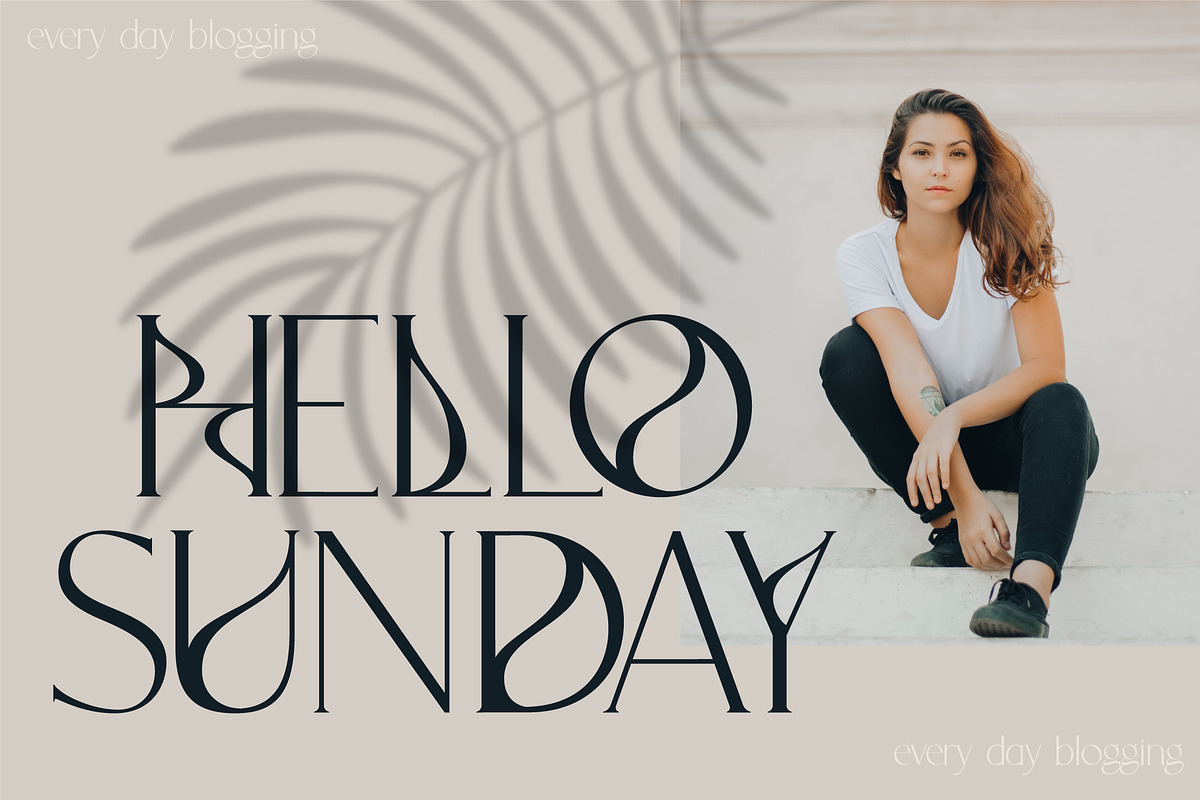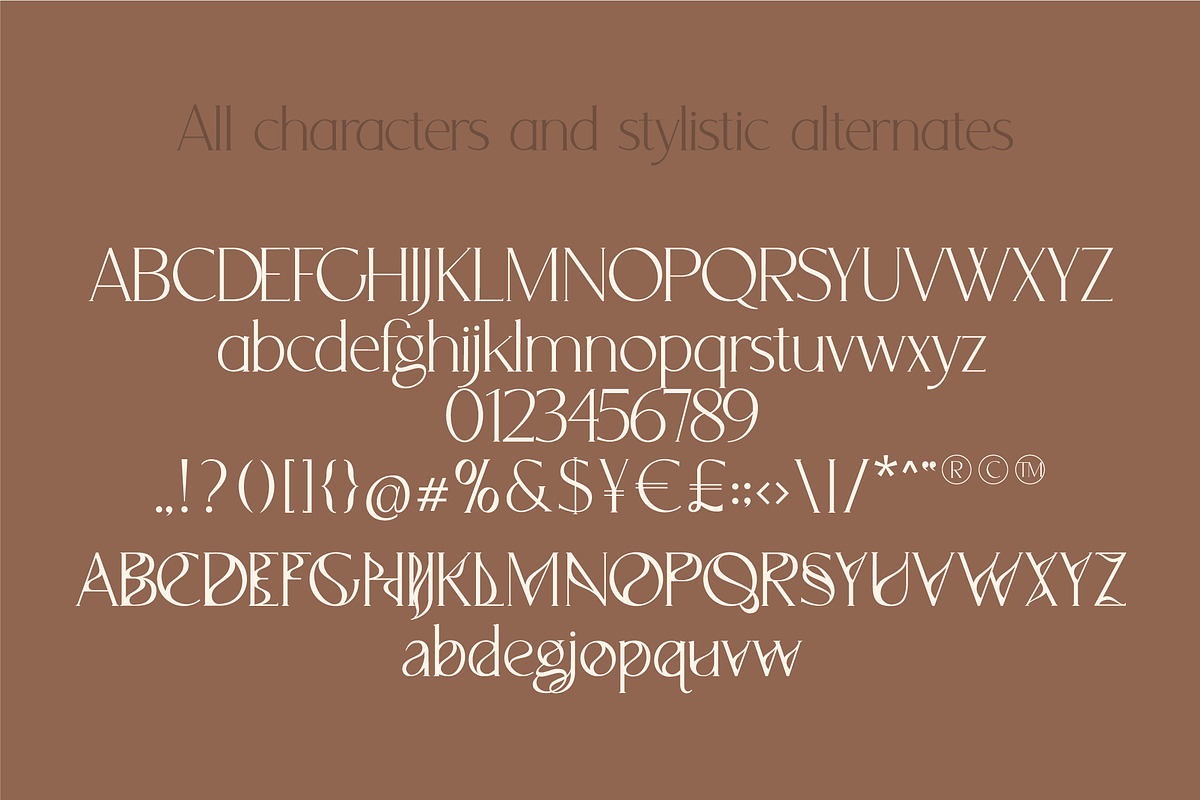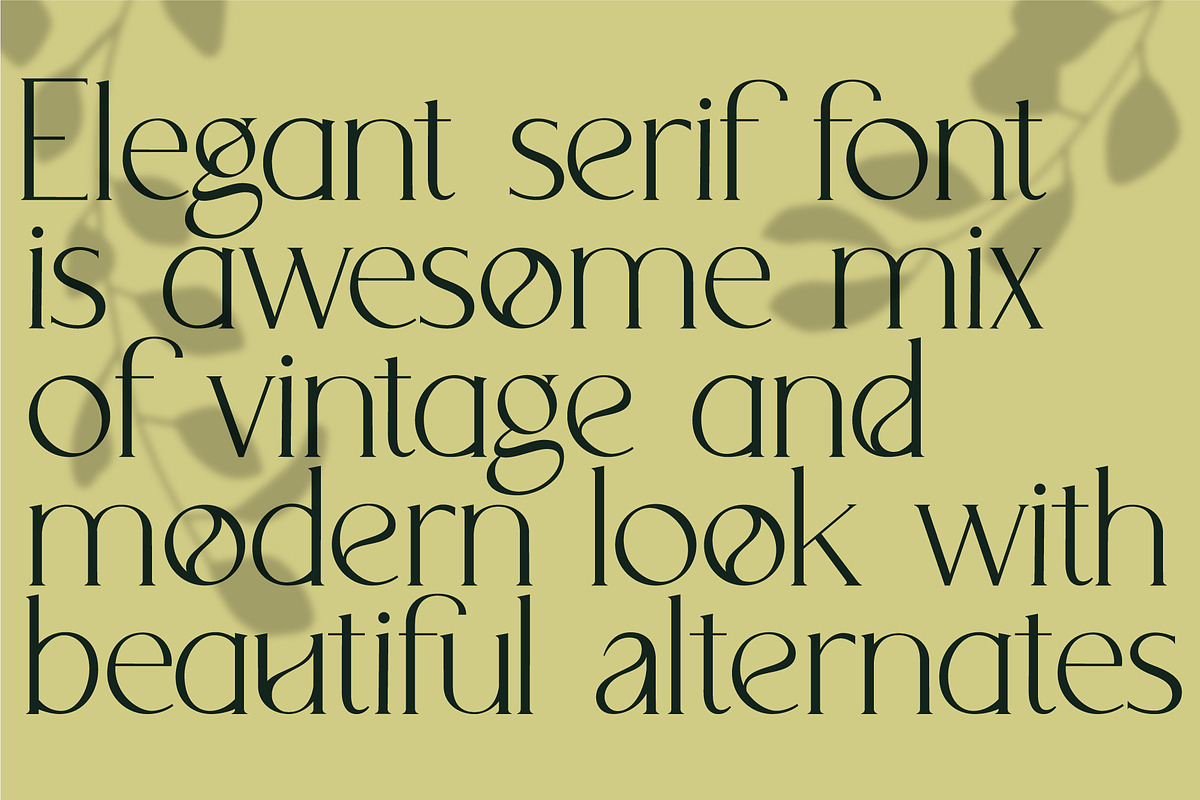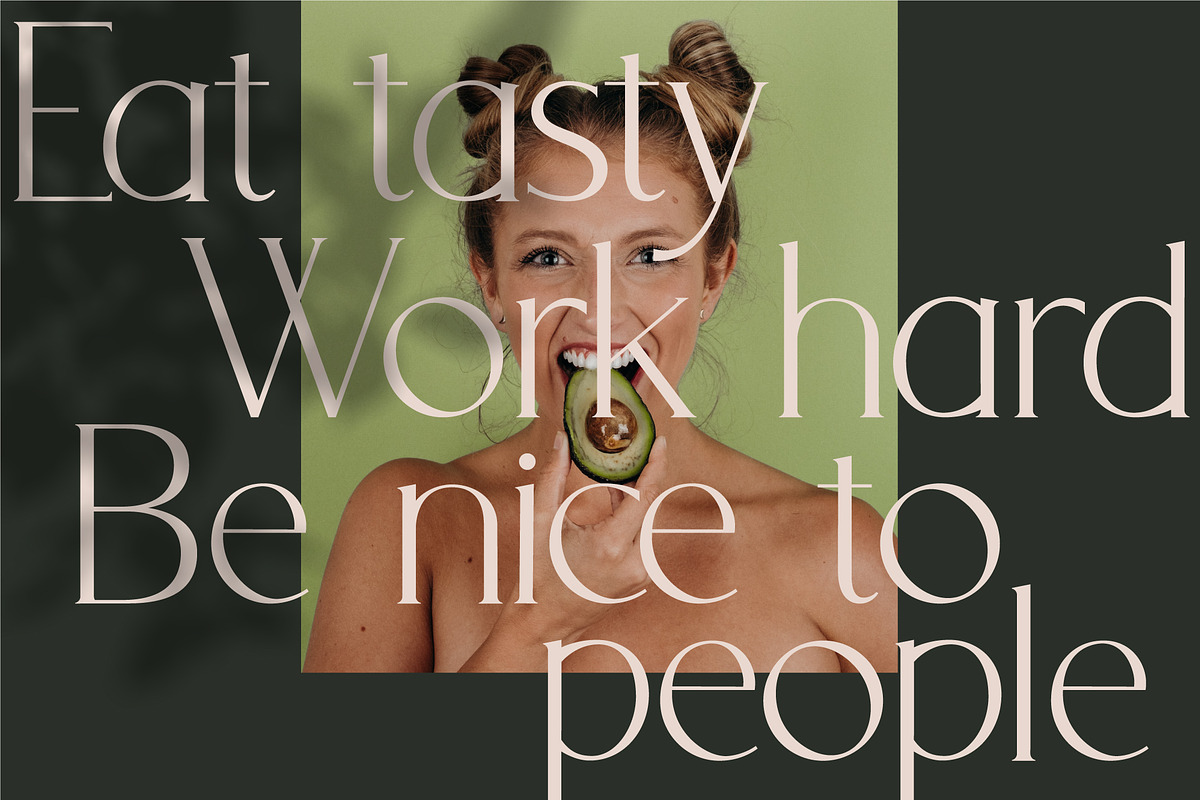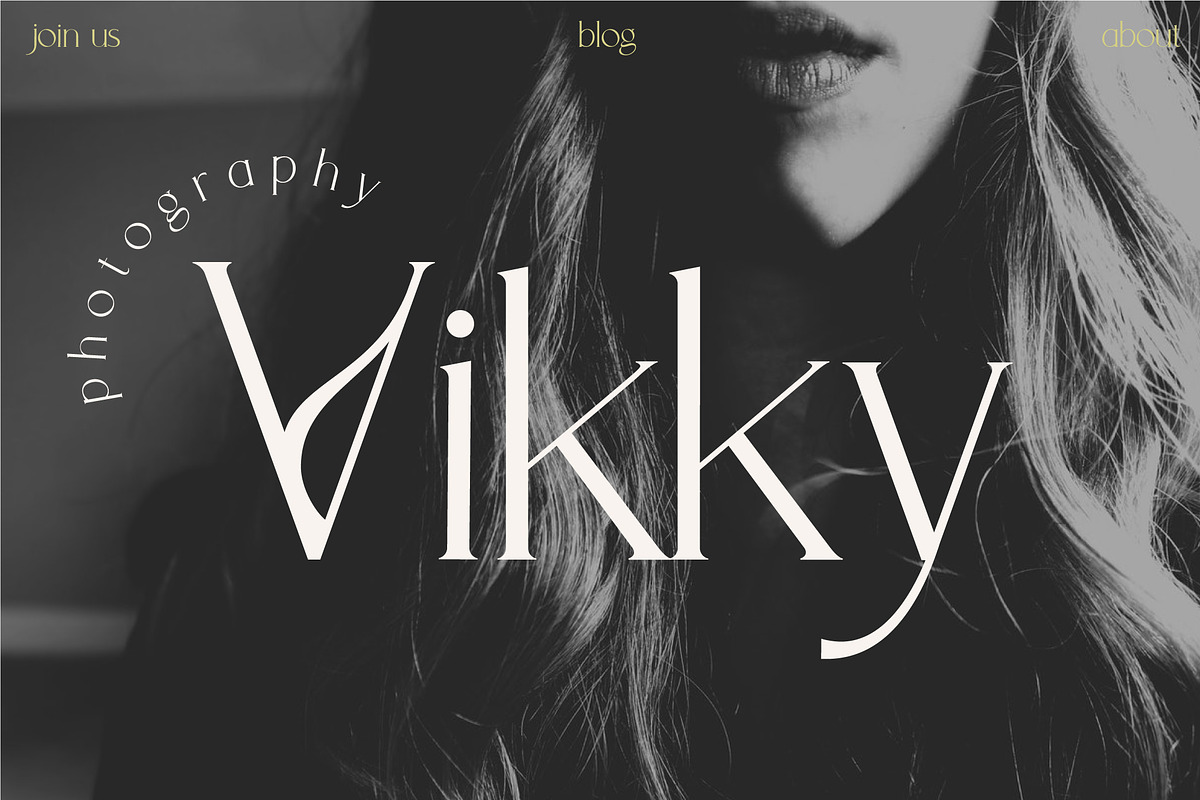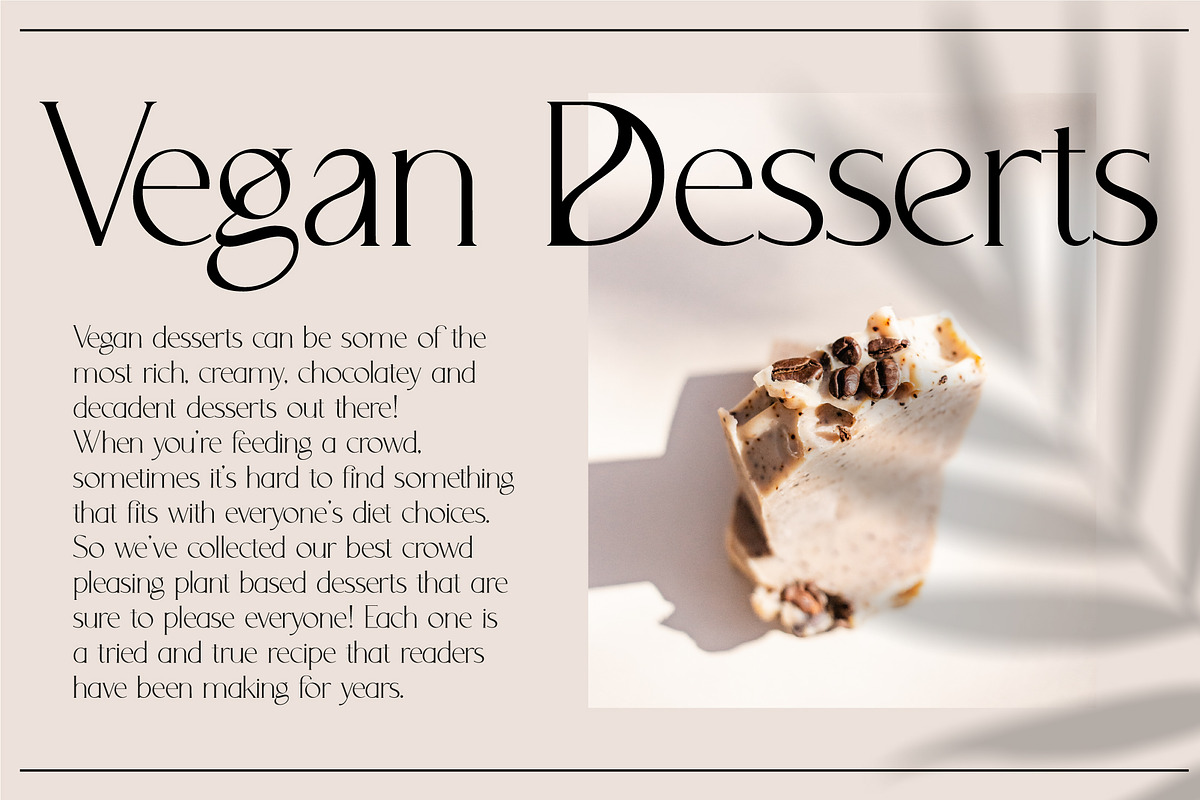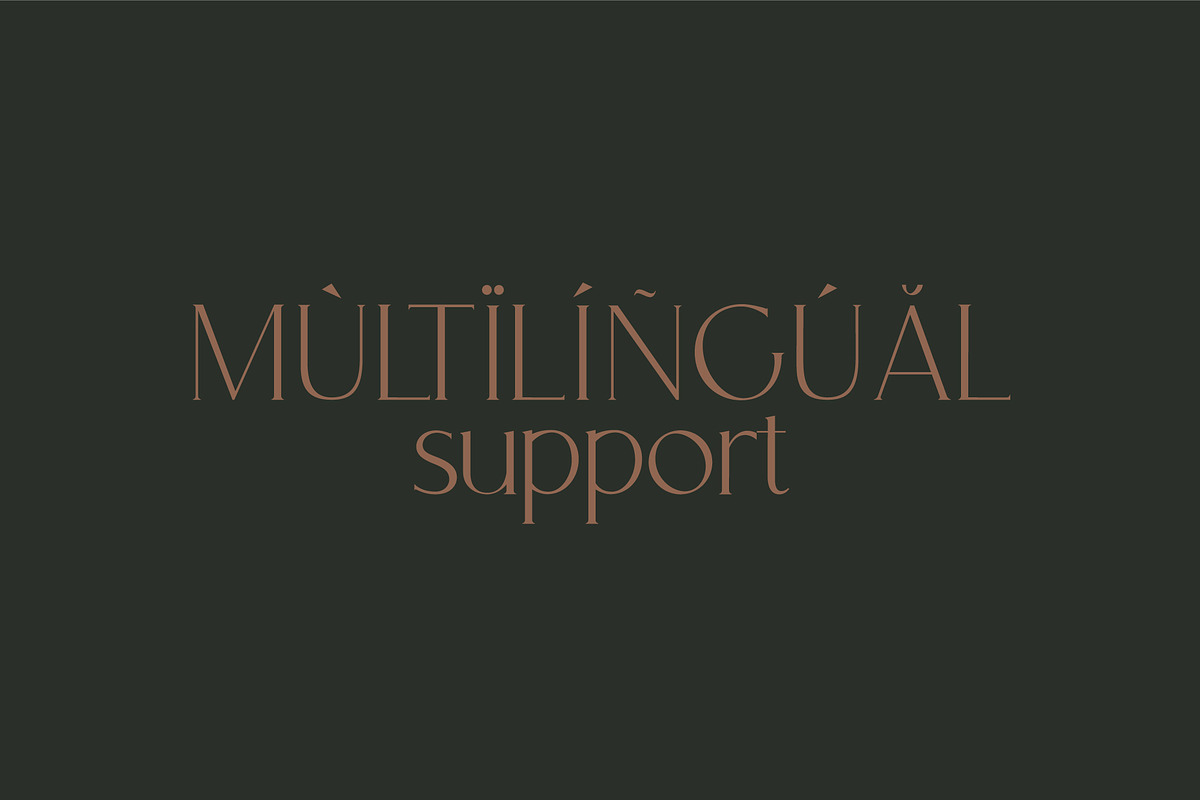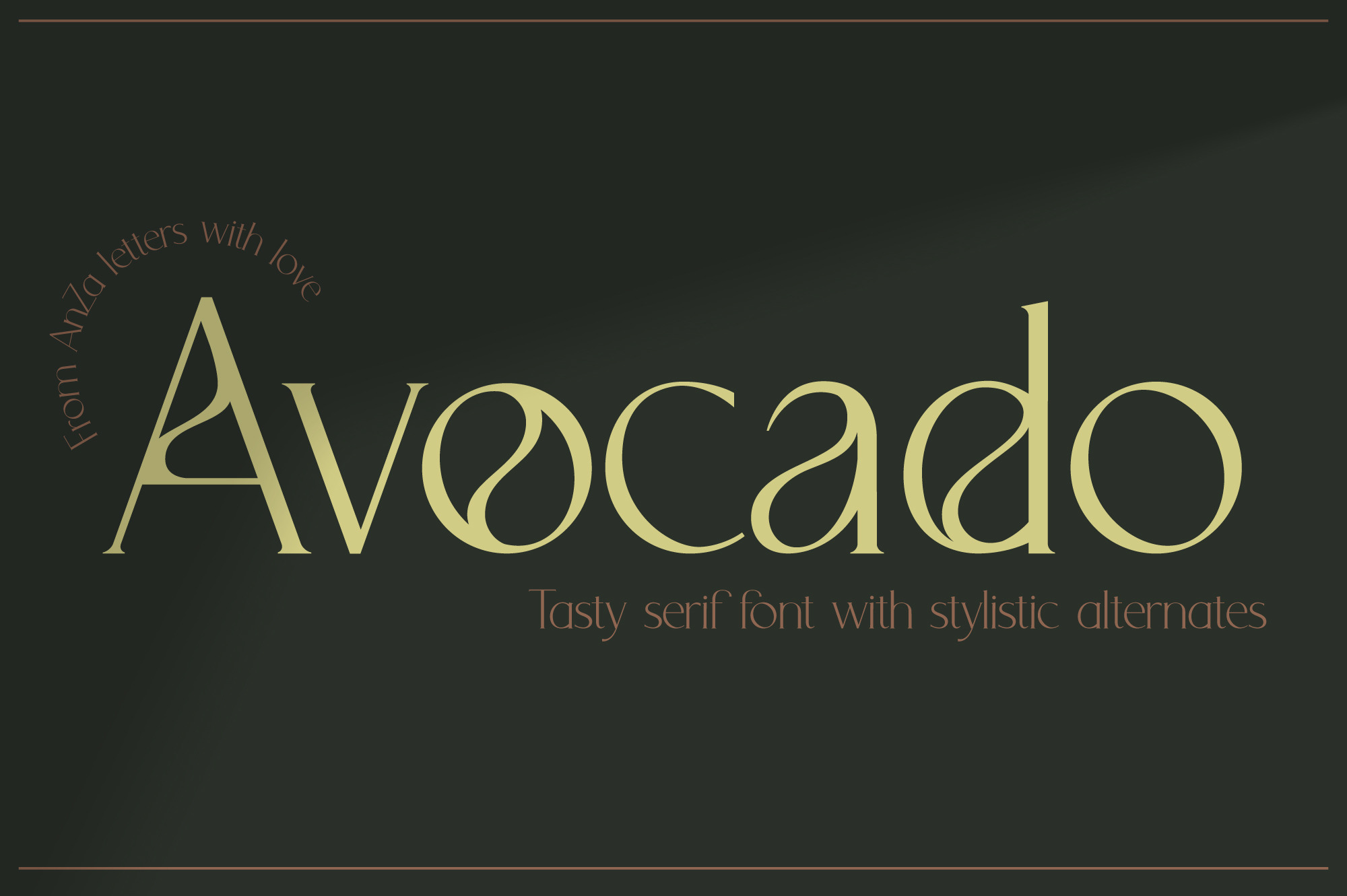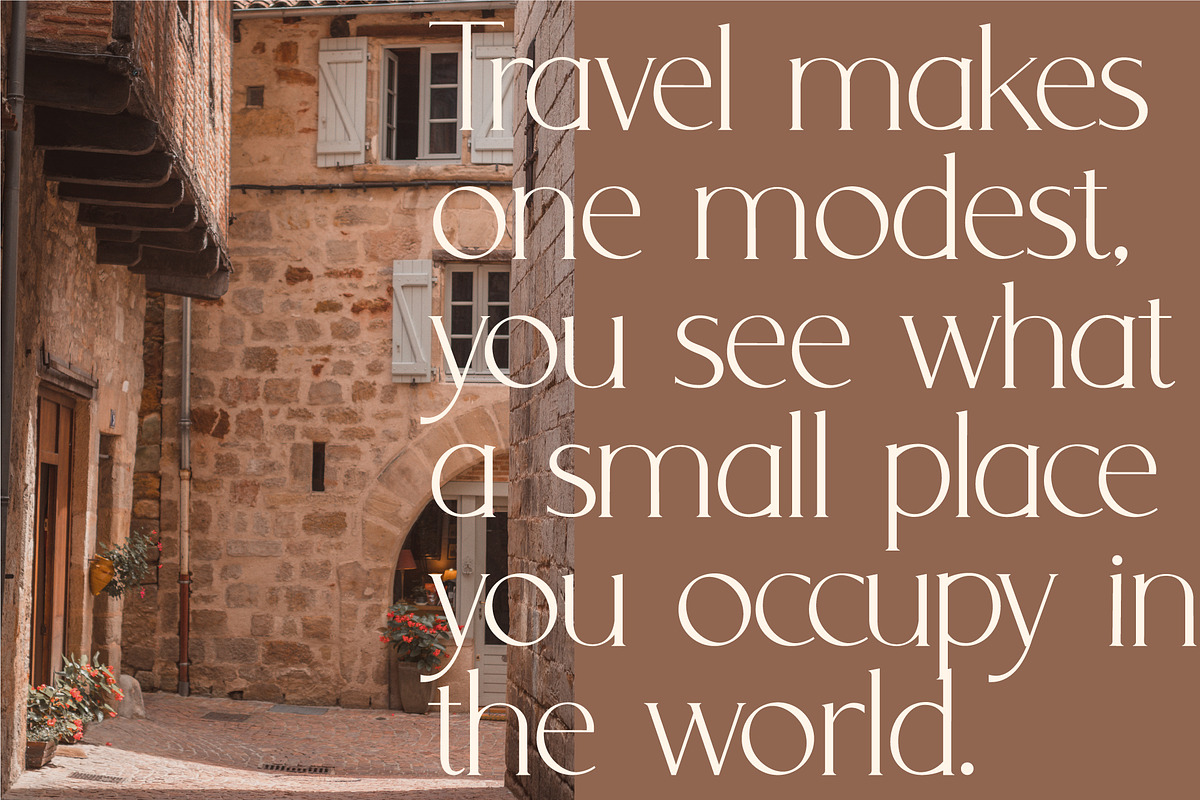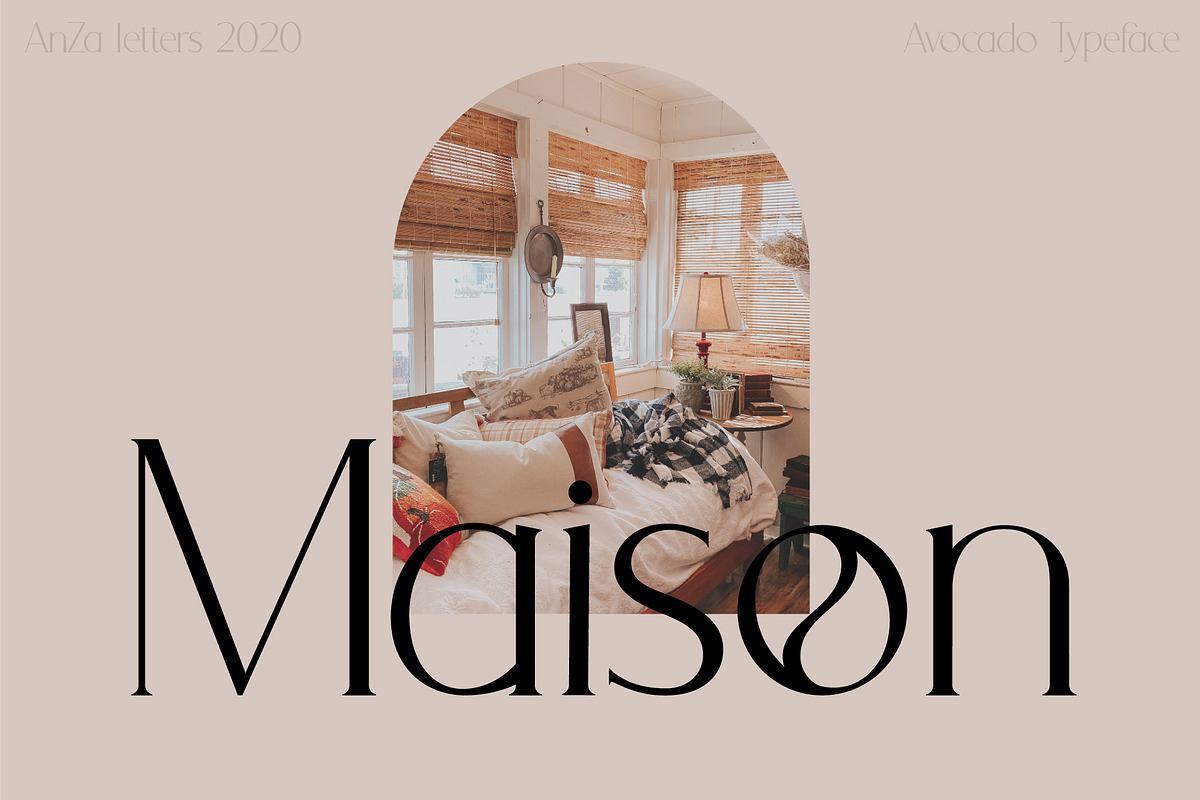
Avocado - Serif Font
Avocado is an awesome mix of vintage and modern typeface with beautiful alternates.
It's a very versatile font that works great in large and small sizes. Perfect for editorial projects, magazine headers, Logo design, Clothing Branding, product packaging, magazine headers, or simply as a stylish text overlay to any background image.
Avocado font contains a large range of alternates to provide you with more customisation options. Access your OpenType features to access the large selection of alternates to get luxurious typography. All alternates can also be accessed via a Glyphs panel.
Avocado font has uppercase and lowercase characters, over 60 ligatures, numbers and punctuations, multilingual support (French, German, Italian, Norwegian, Portuguese, Spanish, Swedish, Swiss German).